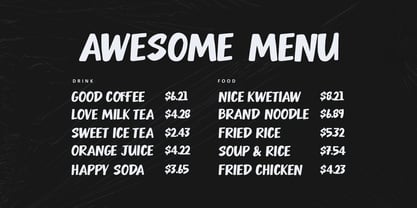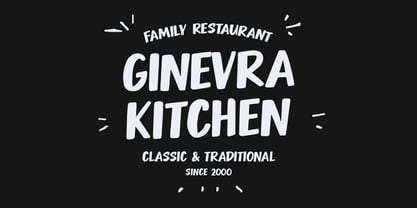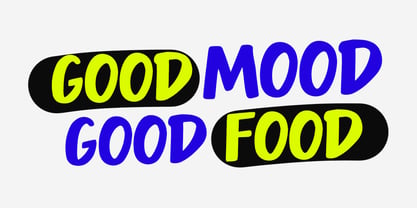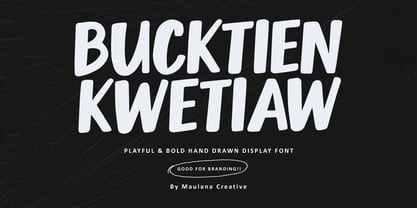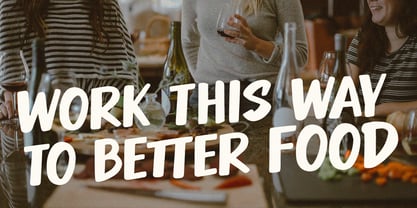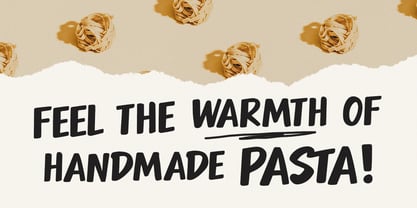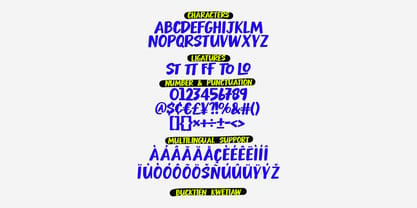
MC Bucktien Kwetiaw
by Maulana Creative
The MC Bucktien Kwetiaw Font Family was designed by Gilang Maulana and published by Maulana Creative. MC Bucktien Kwetiaw contains 1 styles. More about this family
Inject a dose of energy and fun into your designs with Bucktien Kwetiaw, a vibrant display font designed for high-impact branding. Featuring thick, hand-rendered strokes and a charmingly irregular baseline, this font captures a friendly, "pop-art" aesthetic that stands out instantly. Whether you are working on food packaging, children's book titles, eye-catching social media graphics, or bold awesome designs, Bucktien Kwetiaw provides a handcrafted feel that is both professional and approachable. Its heavy weight ensures maximum readability, making it the perfect choice for logos, and headlines that need to shout!
Designers: Gilang Maulana
Foundry: Maulana Creative